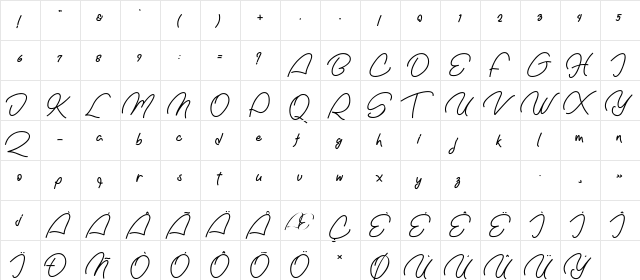
Nachel Victoria Regular
Design Context for Nachel Victoria Typeface
Nachel Victoria is a composed and adaptable typeface that performs quietly and consistently across a wide range of design contexts.